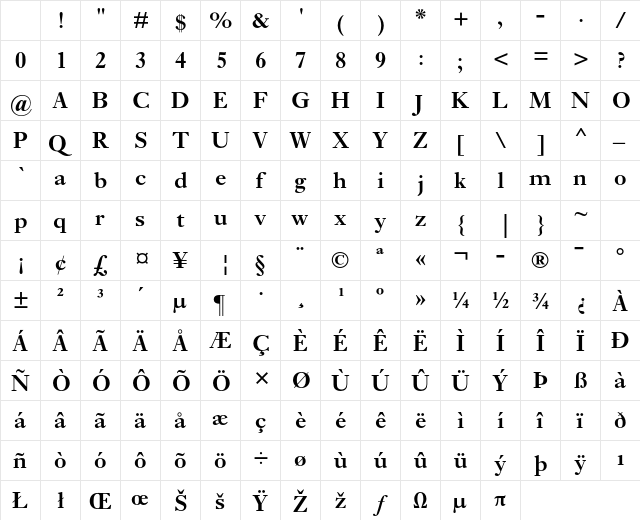
Ehrhardt MT Std Semibold
Style: Semibold
Design Context for Ehrhardt MT Std
Ehrhardt MT Std is a composed and adaptable typeface that performs quietly and consistently across a wide range of design contexts. Its bold stroke weight gives it real presence on the page.